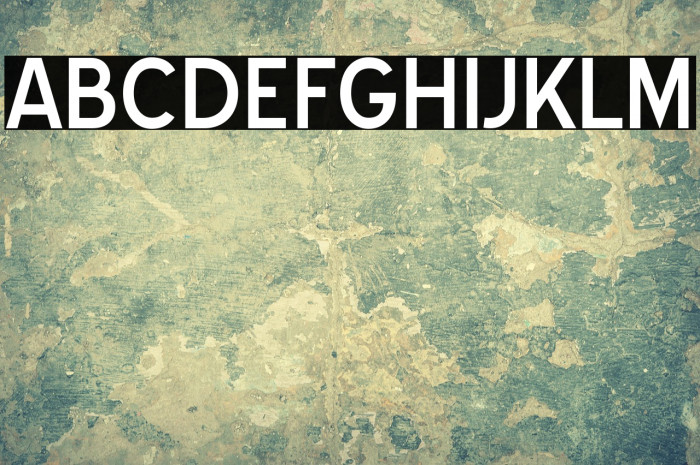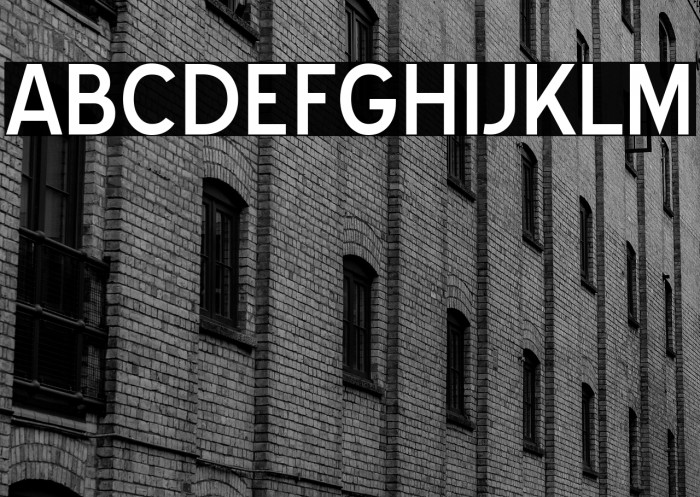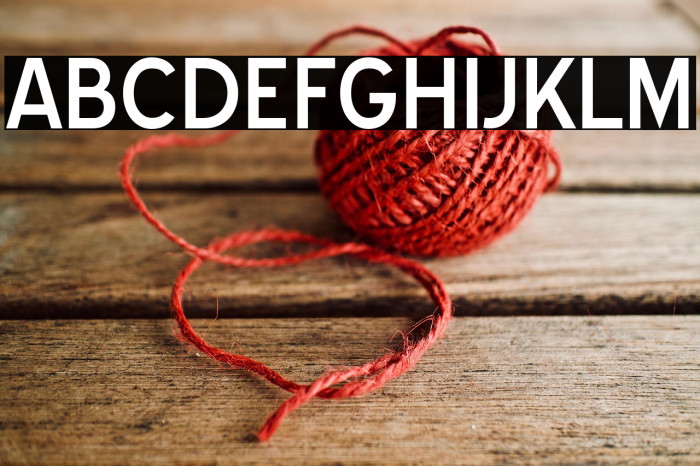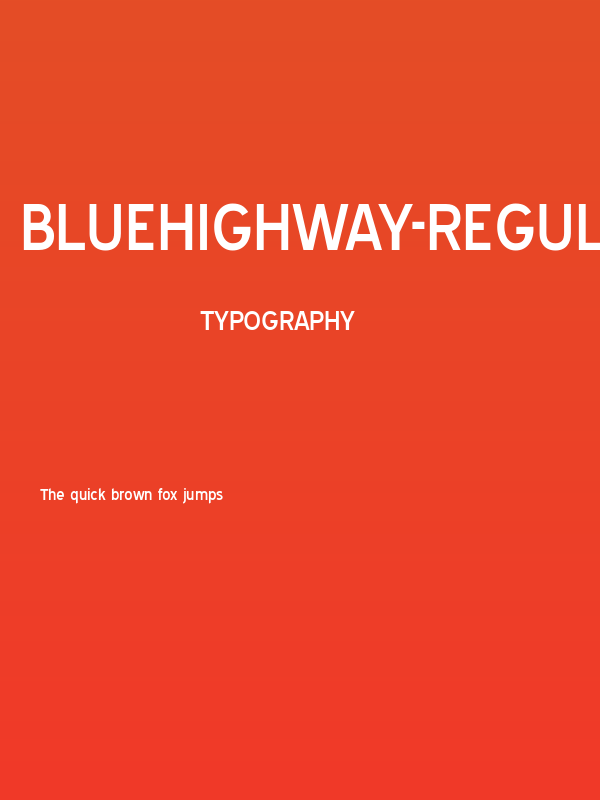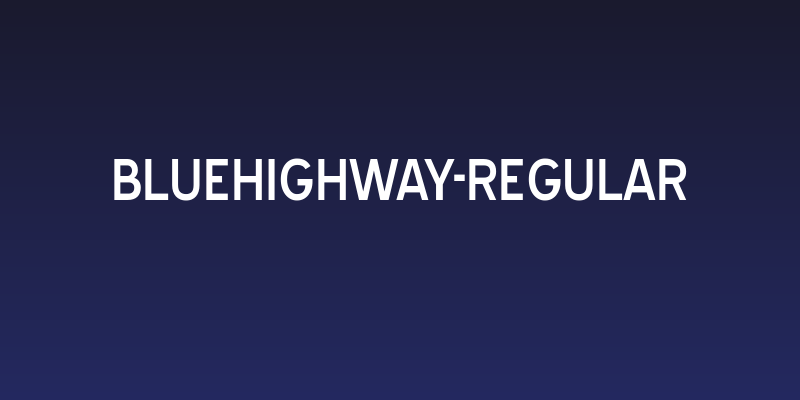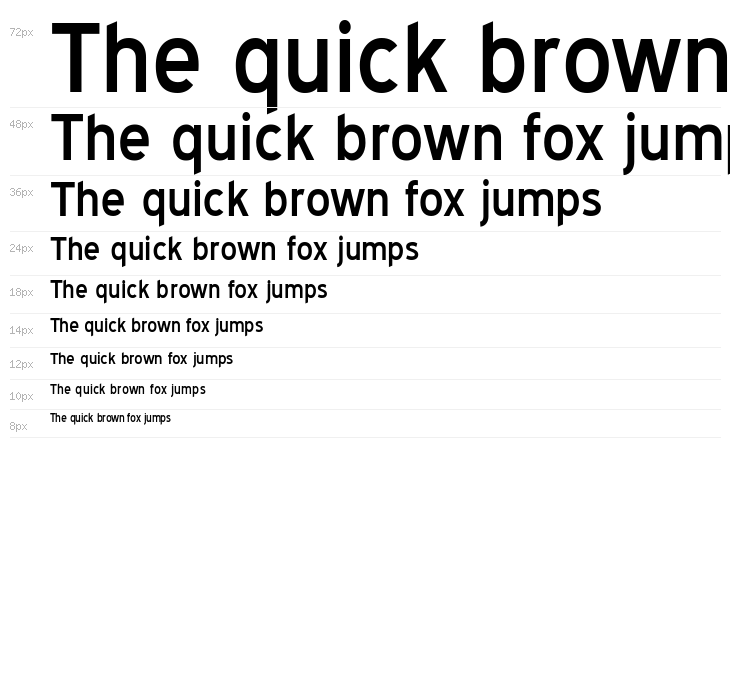
BlueHighway-Regular Font
BlueHighway-Regular Description
This font features a clean and modern sans-serif design, characterized by its straightforward and highly legible letterforms. The uppercase and lowercase letters maintain a consistent stroke width, contributing to its uniform appearance. The numerals are clear and distinct, making them easy to read in various contexts. Special characters are well-defined, supporting a wide range of uses. The overall design is versatile, suitable for both digital and print media, and its simplicity ensures it remains timeless and effective for communication.
| Proposed Projects | Ideal for signage, user interfaces, corporate branding, and editorial design. |